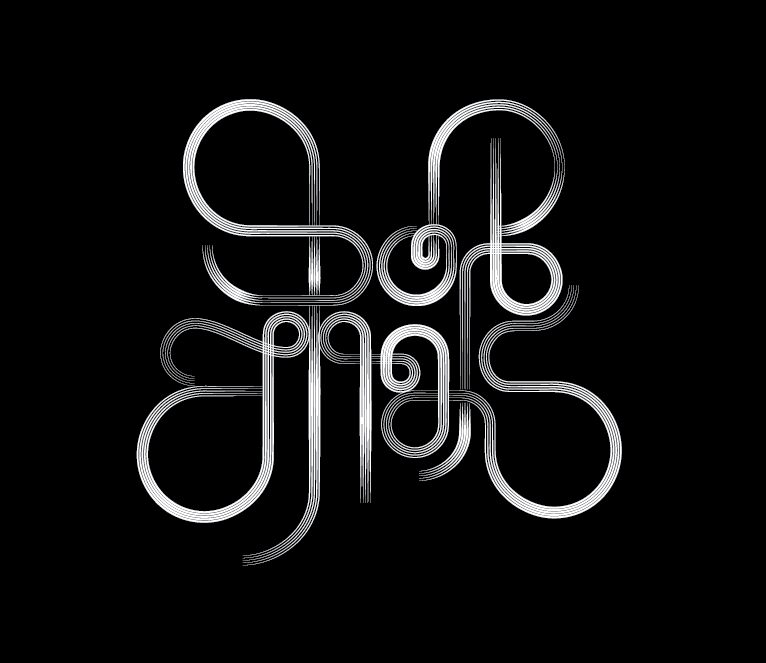
Dobilas Steady by ROCI is a free decorative display font with looping monoline letters and unusually tall upright strokes. Rounded turns and repeated knots give the letters a continuous, maze-like structure.
Designers working in experimental fashion or contemporary arts will find it suited to posters, album packaging, and event graphics. Its open curves can echo linear illustration and abstract pattern work. In branding, the linked forms can become a recognizable motif for boutiques, galleries, or music labels.
Dobilas (Clover) is a typeface with three weights: Lean, Stock, and Fed. Its design uses vertical and horizontal strokes of equal weight, rounded forms, and 90-degree corners. Glyphs consist of either one continuous line or two separate shapes.
The font contains uppercase letters, numbers, and sentence punctuation. Version 1.0 was released in 2010.